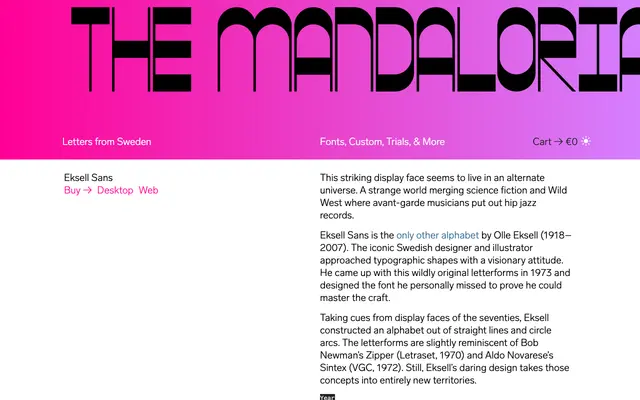
Eksell Sans
Letters from Sweden · Olle Eksell, Göran Söderström · 2021
A single-weight display face built from straight lines and circular arcs, revived from Olle Eksell's 1973 original alphabet by Göran Söderström in 2021.
Originally drawn in 1973 by Olle Eksell, the celebrated Swedish designer and illustrator, this alphabet sat unpublished until Göran Söderström digitised it for Letters from Sweden in 2021. Its letterforms are constructed entirely from straight strokes and circle arcs, placing it in the company of Bob Newman's Zipper and Aldo Novarese's Sintex, though Eksell's version reads as more idiosyncratic and typographically self-aware than either. The result is a face that feels simultaneously retro and unplaceable, suited to editorial, music and cultural contexts where outright strangeness is an asset.
Constructed from straight lines and circle arcs with no weight variation, Eksell Sans is a display typeface in the geometric tradition of 1970s novelty faces, closer to avant-garde lettering than any conventional text category.